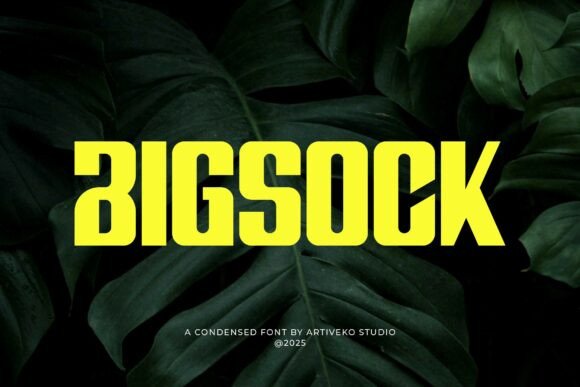
Bigsock: A Bold Sans Serif for Confident Branding
I was staring at a blank brand board for a local craft brewery, the cursor blinking in Illustrator while I cycled through my usual go-to typefaces. The brief demanded something loud, modern, and unapologetic—a visual voice that could shout over the noise of a crowded taproom. That is when I pulled up Bigsock, a powerful sans serif font crafted to make your message stand out with confidence. Within minutes of dragging the first letter onto the artboard, the project shifted from a generic draft into something with real personality. As someone who has tested hundreds of Fonts over the years, it is rare to find a typeface that immediately solves the "impact" problem without needing excessive tweaking.
Why Bigsock Works for High-Impact Logo Design
The moment you load Bigsock, you notice the thick strokes and clean geometry that define its character. In logo design, where every pixel counts, this commanding structure is a massive advantage. I tested Bigsock as the primary logotype for the brewery concept, scaling it down to see how it held up on a pint glass mockup. Unlike many display fonts that fall apart at smaller sizes due to overly decorative elements, Bigsock maintains its integrity because of its robust construction. It feels like a premium font built for brands that need to assert authority instantly.
When designing a logo, the goal is often to create a mark that is memorable even when stripped of color or context. Bigsock achieves this through its bold weight and geometric precision. I found that pairing it with a simple icon created a balanced identity system where the typography carried the weight of the brand promise. For designers looking for a strong foundation for a new startup or a rebranding project, this Sans Serif option offers a level of stability that softer, more delicate fonts simply cannot match. It is not just a font; it is a statement piece that anchors the entire visual identity.
Using Bigsock for Posters and Large Format Print
One of the most exciting aspects of working with Bigsock is seeing how it performs in large format applications like posters and event flyers. I placed the font on a mockup for a weekend music festival poster, setting the headline in all caps against a dark background. The result was striking; the thick strokes filled the negative space beautifully, creating a sense of energy and movement even in a static image. Because Bigsock is designed with such a commanding structure, it reads clearly from a distance, which is critical for outdoor advertising and large print assets.
In the world of commercial design, readability at scale is non-negotiable. Many modern typography systems struggle when blown up to billboard size, but Bigsock thrives in this environment. The clean lines ensure that there is no visual clutter, allowing the message to land with maximum impact. Whether you are designing a concert poster, a promotional flyer for a product launch, or a trade show banner, this font delivers the visual punch required to stop a passerby in their tracks. It transforms standard text into a graphic element that demands attention.
Integrating Bigsock into Packaging and Product Labels
Moving from digital screens to physical products, I tested Bigsock on a series of packaging mockups for a line of artisanal hot sauces. The challenge here was to make the product pop on a shelf lined with competitors using similar color palettes. By using Bigsock for the front-of-pack branding, the label immediately commanded attention. The font's bold nature works exceptionally well for short phrases and key product descriptors, ensuring that the consumer knows exactly what they are picking up within seconds.
However, it is important to note where Bigsock shines and where it should be used sparingly. While it is ideal for logos and headlines, it is not suitable for long blocks of body text or ingredient lists. On the packaging, I paired it with a lighter, more neutral sans serif for the fine print to maintain visual hierarchy. This combination allowed the brand name to dominate the front while keeping the back informative and readable. If you are designing labels for food, beverages, or lifestyle products, Bigsock provides that essential "hero" quality that elevates the perceived value of the item.
Digital Applications: Web Headers and Social Media Graphics
In the digital realm, Bigsock proves to be just as versatile as it is in print. I applied it to a website header for a creative studio portfolio, using it for the main navigation and hero section title. The font loaded quickly and rendered crisply across different devices, making it an excellent choice for web design. Its geometric clarity ensures that it remains legible on mobile screens, where screen real estate is limited and users are scrolling rapidly.
Social media graphics also benefit significantly from this typeface. When I created a set of Instagram posts for a fictional sneaker drop, using Bigsock for the overlay text made the images feel dynamic and urgent. In the fast-paced feed of social platforms, you have less than a second to capture attention, and this font does exactly that. It works particularly well for call-to-action buttons, promotional banners, and story highlights. For marketers and content creators, having a reliable display font like Bigsock in your toolkit ensures that your digital assets always look professional and cohesive.
Strategic Font Pairing and Licensing Considerations
To get the most out of Bigsock, strategic font pairing is essential. Since it is such a dominant Sans Serif, it pairs beautifully with a contrasting serif font for body copy, creating a classic yet modern editorial look. Alternatively, for a more contemporary feel, a thin, minimalist sans serif can complement its boldness without competing for attention. I also experimented with a handwritten script font for accent details, which added a touch of human warmth to the otherwise rigid geometry of Bigsock.